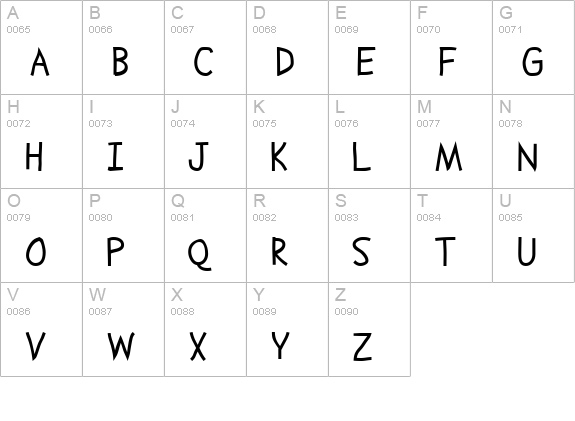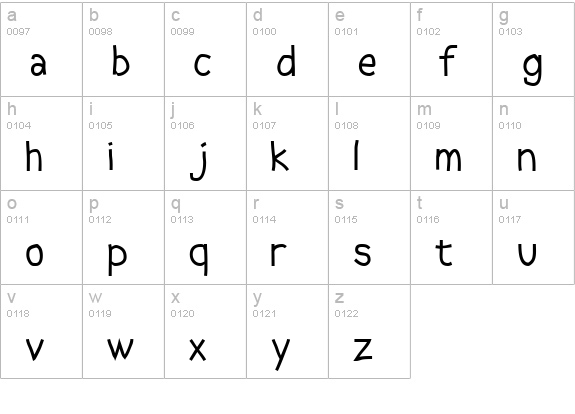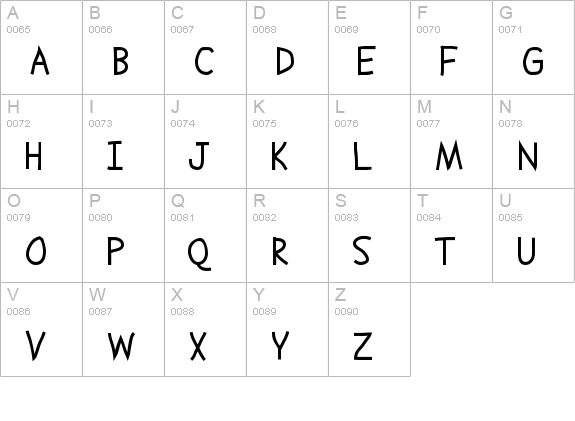
Abscissa Font Details
Abscissa font is a modern and sleek typeface that exudes elegance and sophistication. With its clean lines and rounded edges, this font is perfect for a variety of design projects, from branding to editorial layouts. Its versatility makes it suitable for both digital and print applications, making it a must-have in any designer's toolkit. The best part? Abscissa font is completely free to download at FontsMarket.com. This means you can enhance your projects with this stylish font without breaking the bank. Don't miss out on this opportunity to elevate your designs with the timeless charm of Abscissa font. Download it now and let your creativity shine!